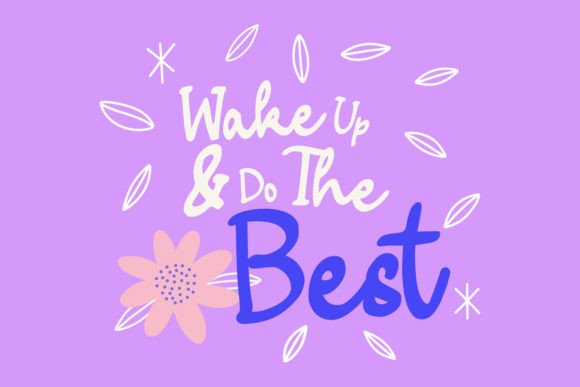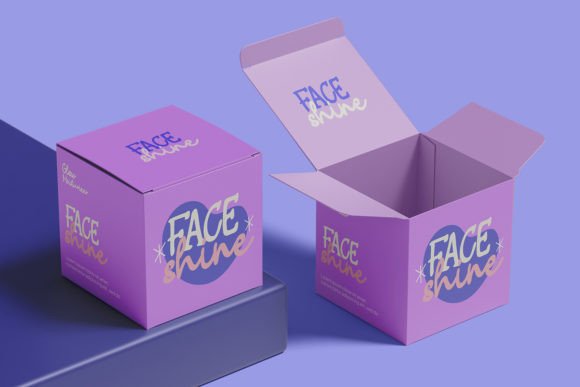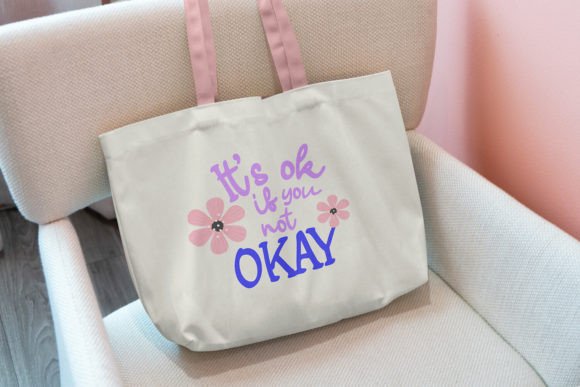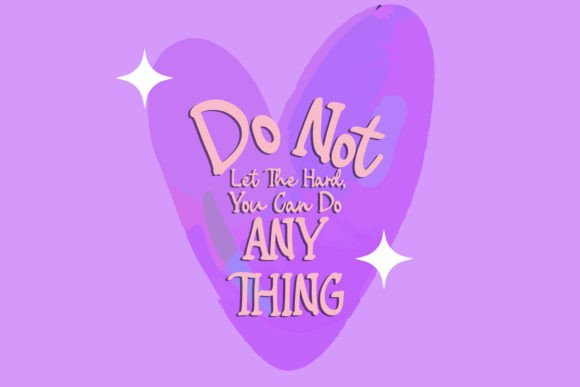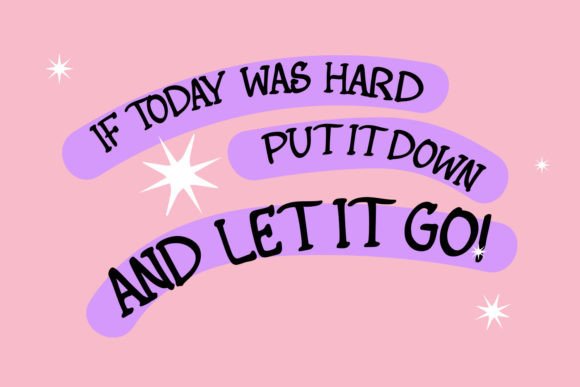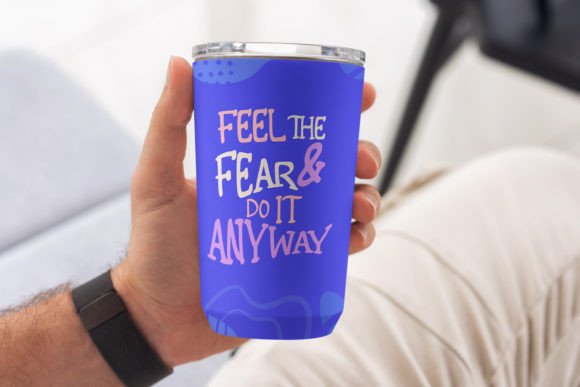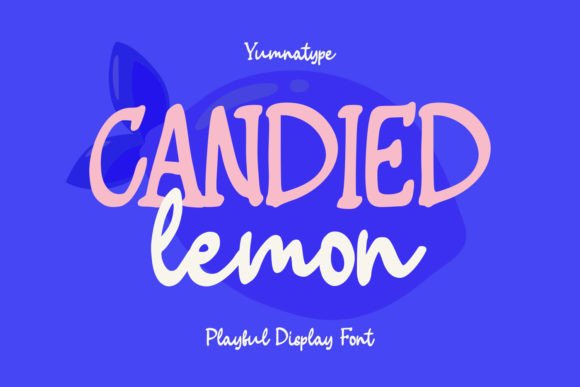
Candied Lemon Font: A Delightful Display Font for Your Designs
Are you looking for a font that adds a unique twist to your designs? Look no further than Candied Lemon, a delightful display font that’s sure to capture attention. With its playful and charming appearance, Candied Lemon is perfect for designers and crafters who want to add a touch of whimsy to their work.
The Uppercase Letters: A Playful and Rounded Shape
The uppercase letters in Candied Lemon are designed with a slightly rounded shape, giving them a playful appearance that’s hard to resist. Each letter is meticulously crafted to maintain a consistent style, adding a sense of cohesion to your text while retaining its playful charm. Whether you’re designing a logo, headline, or title, the uppercase letters in Candied Lemon are sure to make a statement.
One of the standout features of Candied Lemon’s uppercase letters is their versatility. They can be used in a variety of design contexts, from formal and elegant to casual and playful. For example, you could use Candied Lemon to create a fun and playful logo for a children’s brand, or to add a touch of personality to a formal business card.
The Lowercase Letters: A Handwritten Script with a Personal Touch
In contrast to the uppercase letters, the lowercase letters of Candied Lemon are designed to resemble handwritten script. This gives them a warm and authentic feel that’s perfect for adding a personal touch to your designs. Each letter flows seamlessly into the next, creating a natural and organic feel that’s both inviting and engaging.
The lowercase letters in Candied Lemon are perfect for body text, captions, or any other context where you want to add a touch of warmth and personality to your writing. They’re also great for creating a sense of continuity with the uppercase letters, which can be used to create headings and titles.
Why Choose Candied Lemon Font?
So why choose Candied Lemon font for your designs? Here are just a few reasons:
- Unique and playful appearance: Candied Lemon adds a touch of whimsy to your designs, making them stand out from the crowd.
- Versatile: The uppercase and lowercase letters can be used in a variety of design contexts, from formal to casual.
- Easy to read: Despite its playful appearance, Candied Lemon is easy to read and understand, making it perfect for body text and captions.
- Handcrafted with love: Each letter in Candied Lemon is meticulously crafted to ensure a consistent and high-quality appearance.
How to Use Candied Lemon Font in Your Designs
Using Candied Lemon font in your designs is easy. Here are a few tips to get you started:
- Pair it with a neutral font: Pair Candied Lemon with a neutral font, such as Arial or Helvetica, to create a striking contrast.
- Use it for headings and titles: The uppercase letters in Candied Lemon are perfect for headings and titles, while the lowercase letters can be used for body text and captions.
- Experiment with colors and textures: Candied Lemon looks great in a variety of colors and textures, so don’t be afraid to experiment and find the perfect combination for your design.
Candied Lemon font is a delightful display font that’s sure to add a unique twist to your designs. With its playful and charming appearance, it’s perfect for designers and crafters who want to add a touch of whimsy to their work. Whether you’re designing a logo, headline, or title, Candied Lemon is a great choice. So why not give it a try and see how it can elevate your designs?